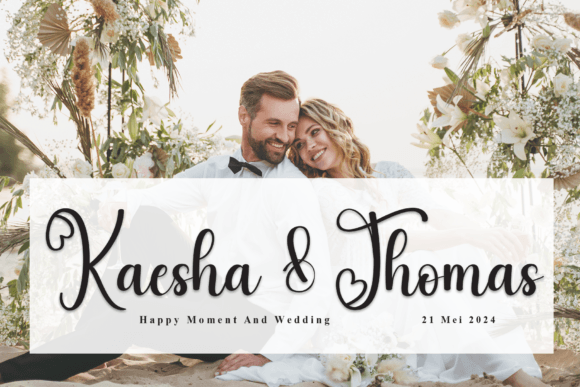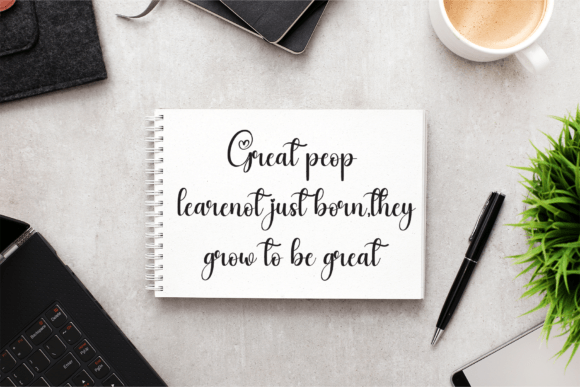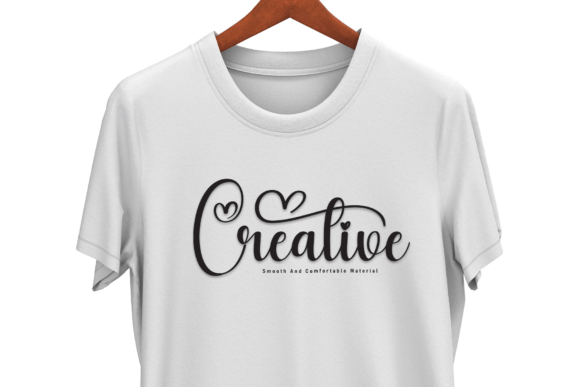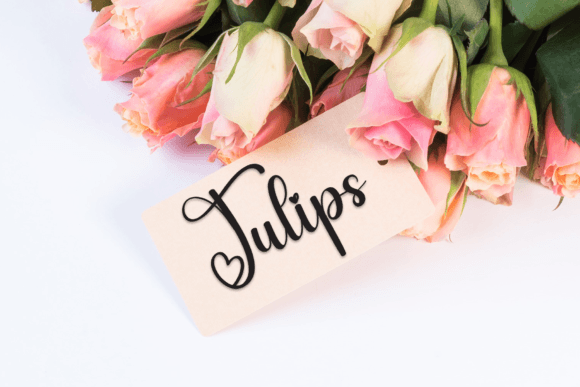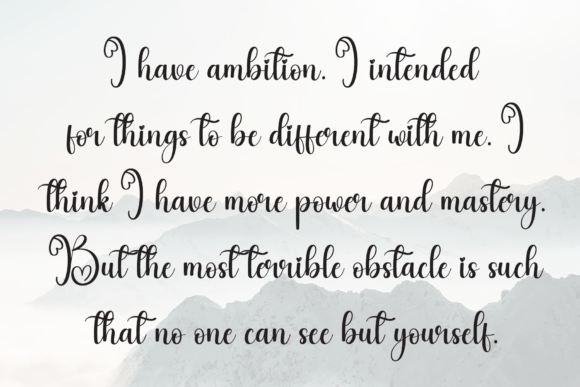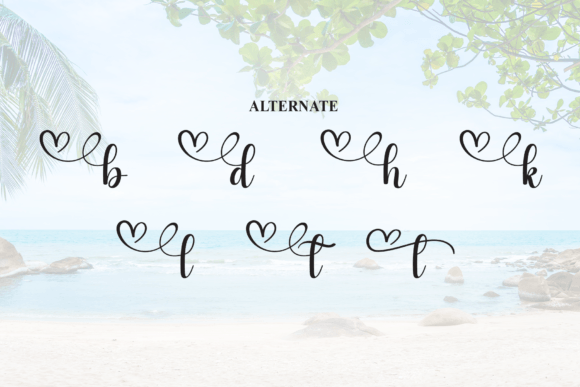
Introducing Beautiful Beach Font: Elevate Your Designs with Elegance
Are you tired of using the same old fonts in your designs? Look no further! Beautiful Beach Font is an exquisite handwritten font that is sure to become your new favorite. With its perfect blend of classy calligraphic influences and modern freshness, this font is ideal for designers and crafters looking to add a touch of elegance to their projects.
The Perfect Blend of Style and Sophistication
Beautiful Beach Font is a masterfully designed font that exudes sophistication and style. Its handwritten feel gives it a personal and unique touch, making it perfect for a wide range of design projects, from wedding invitations and branding materials to social media graphics and more. The font’s calligraphic influences add a level of refinement and luxury, making it ideal for high-end designs.
What Sets Beautiful Beach Font Apart
- Unique and Exquisite Design: Beautiful Beach Font boasts a one-of-a-kind design that is sure to make your projects stand out from the crowd.
- Classy Calligraphic Influences: The font’s calligraphic influences add a level of sophistication and elegance, making it perfect for high-end designs.
- Contemporary and Fresh Feel: Despite its classic influences, Beautiful Beach Font feels modern and fresh, making it perfect for contemporary designs.
- Versatile and Easy to Use: The font is easy to use and can be applied to a wide range of design projects, from digital graphics to print materials.
Why Designers and Crafters Love Beautiful Beach Font
Beautiful Beach Font has quickly become a favorite among designers and crafters, and it’s easy to see why. The font’s unique design and elegant feel make it perfect for a wide range of projects, from:
- Wedding Invitations and Stationery: Add a touch of elegance and sophistication to your wedding invitations and stationery with Beautiful Beach Font.
- Branding and Packaging: Use Beautiful Beach Font to create stunning branding materials and packaging that will help your business stand out.
- Social Media Graphics: Elevate your social media graphics with Beautiful Beach Font and make your content more engaging and shareable.
- Digital and Print Materials: Use Beautiful Beach Font in a wide range of digital and print materials, from brochures and flyers to e-books and more.
Tips for Using Beautiful Beach Font
Beautiful Beach Font is a stunning handwritten font that is sure to become a favorite among designers and crafters. With its unique design, elegant feel, and versatility, it’s perfect for a wide range of design projects. Whether you’re looking to create wedding invitations, branding materials, or social media graphics, Beautiful Beach Font is the perfect choice. So why wait? Fall in love with Beautiful Beach Font and bring your projects to the highest levels!